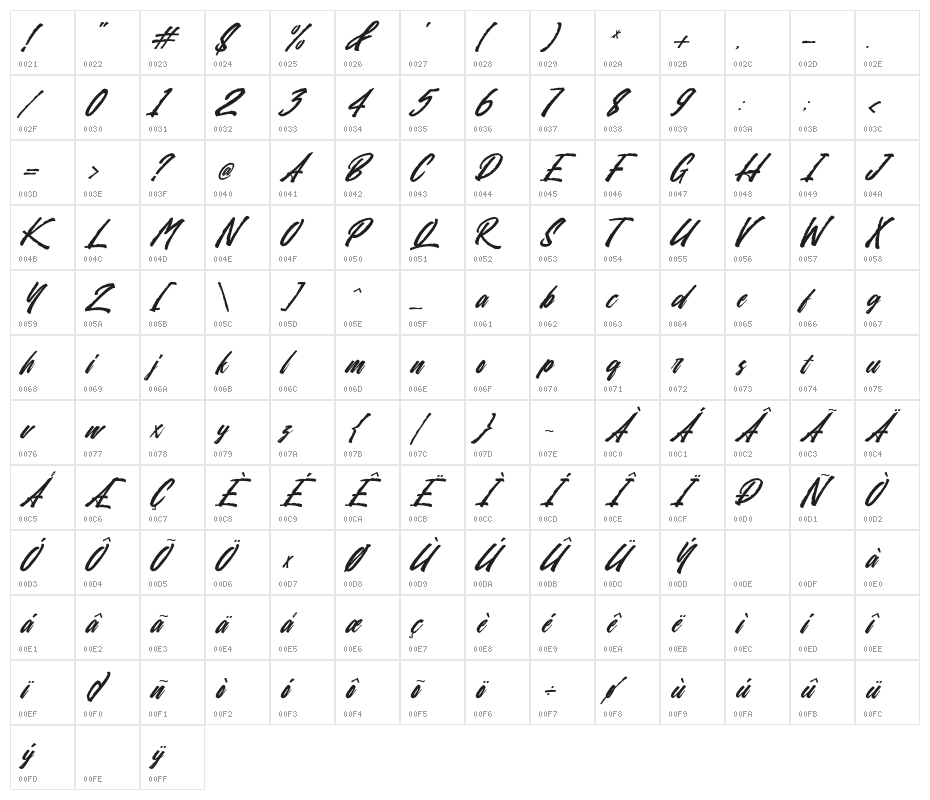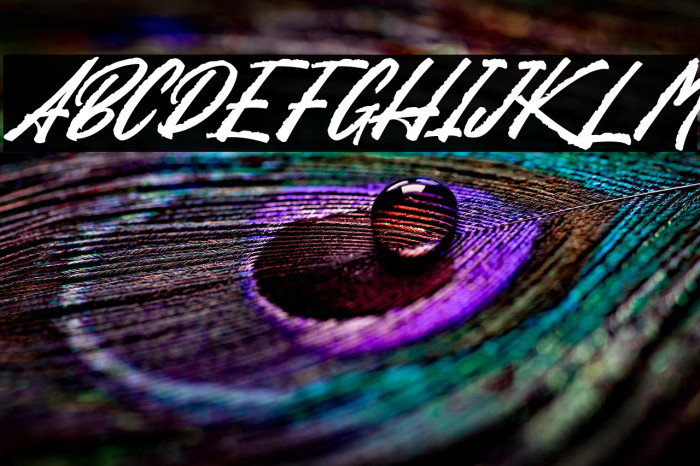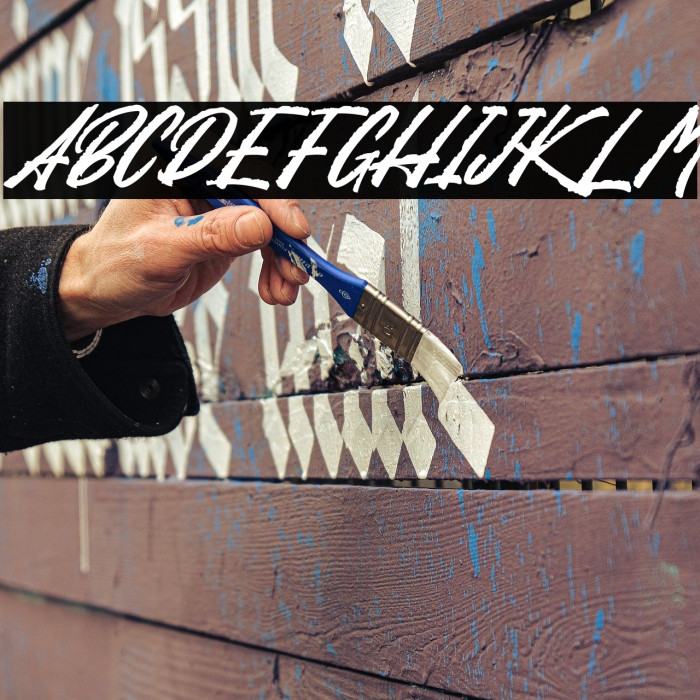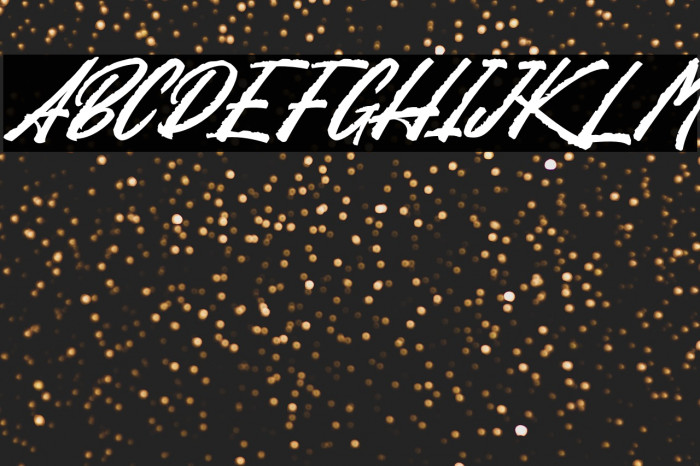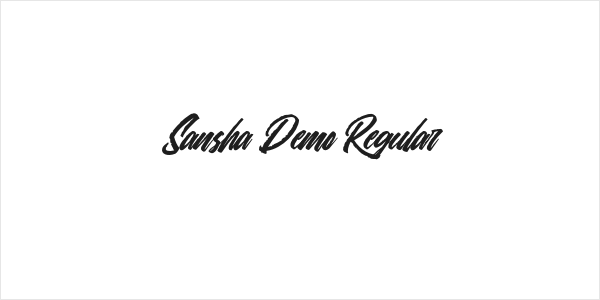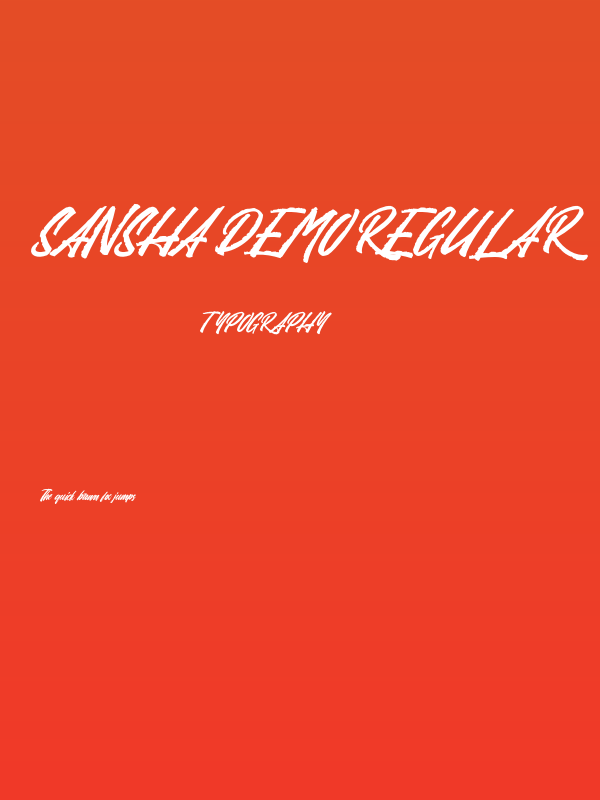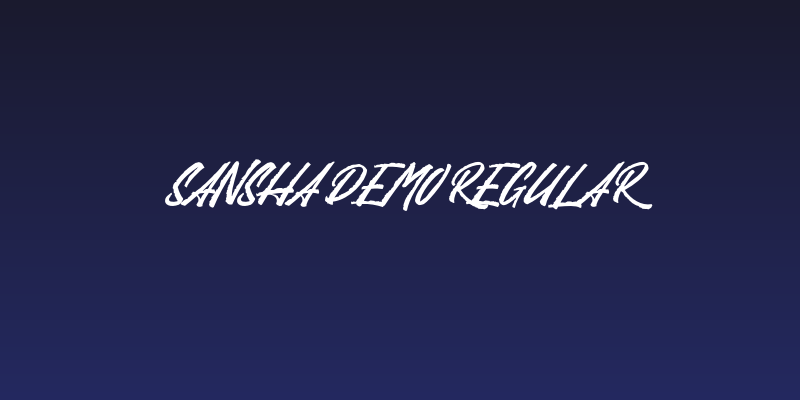
Sansha Demo Regular Font
Sansha Demo Regular Description
This font exudes a dynamic and energetic style with its bold, brush-like strokes. The letters are crafted with a sense of movement, giving them a lively and expressive appearance. The uppercase characters are particularly striking, with their sweeping lines and dramatic flair. The lowercase letters maintain a cohesive flow, complementing the uppercase with their own unique charm. The numerals and special characters are equally bold, ensuring consistency across all elements. This font's overall style is both modern and artistic, making it suitable for creative and eye-catching designs.
| Overall Style | Modern, Artistic |